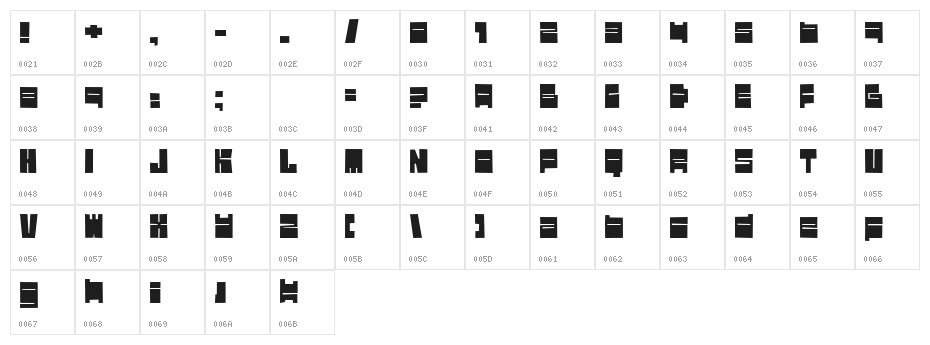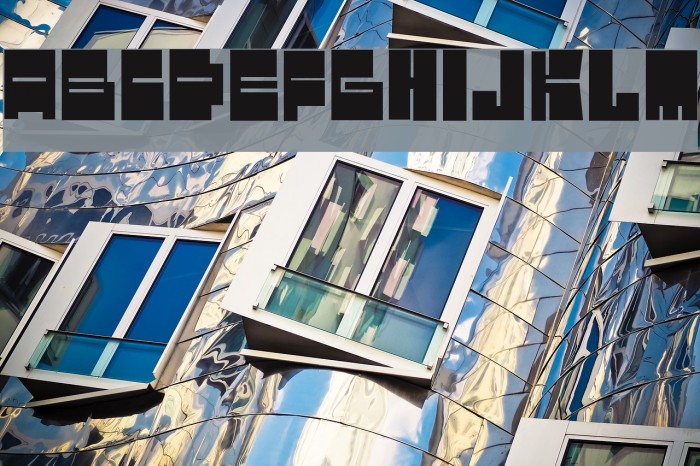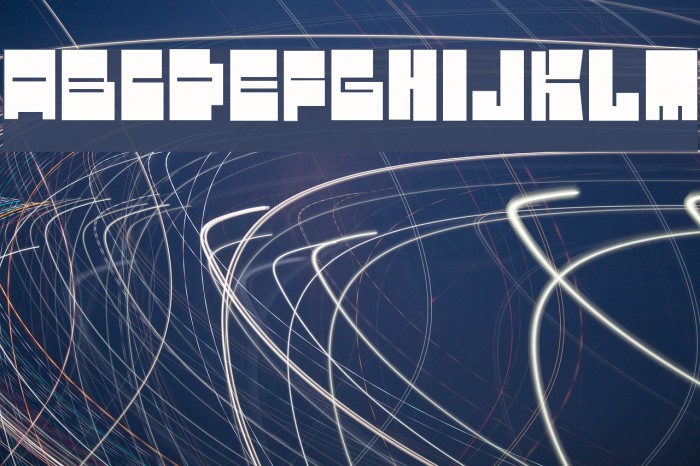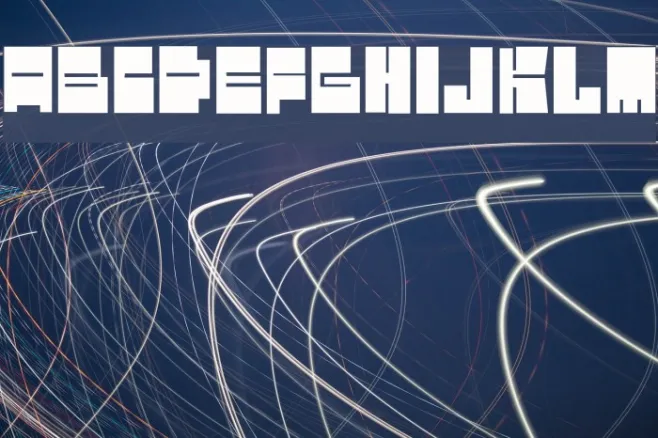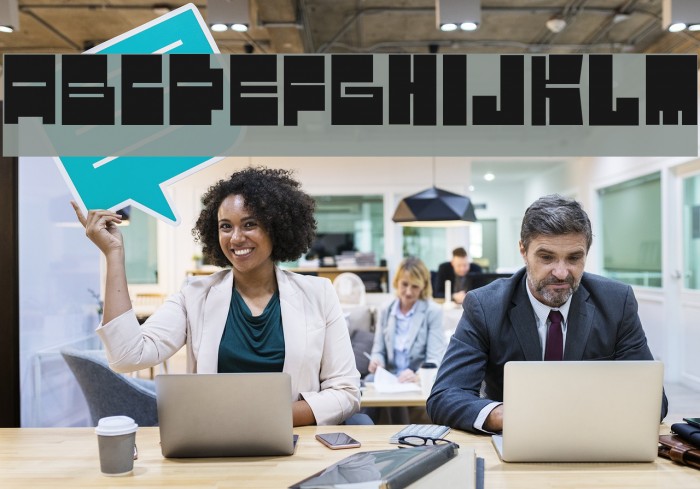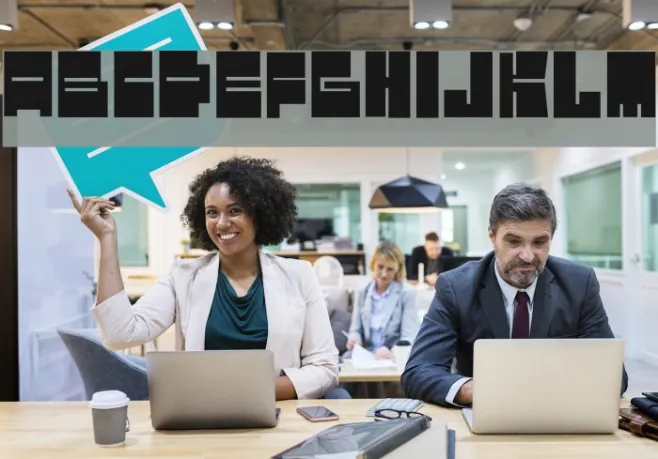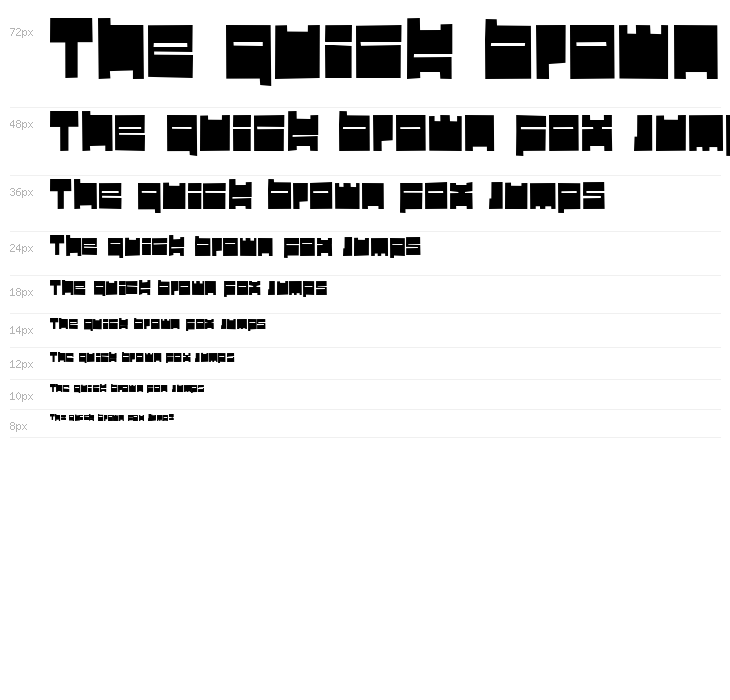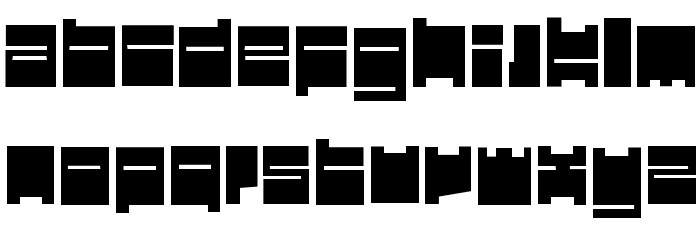
testi Font
testi Description
This font exhibits a bold, geometric style with a distinctly modern and futuristic appearance. Each character is constructed with thick, block-like forms that create a strong visual impact. The uppercase and lowercase letters maintain a consistent width, contributing to a uniform and cohesive look. The numerals and special characters follow the same design principles, ensuring a seamless integration across all glyphs. The font's design is characterized by its sharp angles and straight lines, which give it a mechanical and industrial feel. The spacing between characters is tight, enhancing the compact and solid nature of the font. This style is particularly suitable for projects that require a bold and assertive typeface, such as technology branding, video game titles, or sci-fi themed designs.
| Proposed Projects | Ideal for technology branding, video game titles, sci-fi themed designs, and industrial-themed projects. |